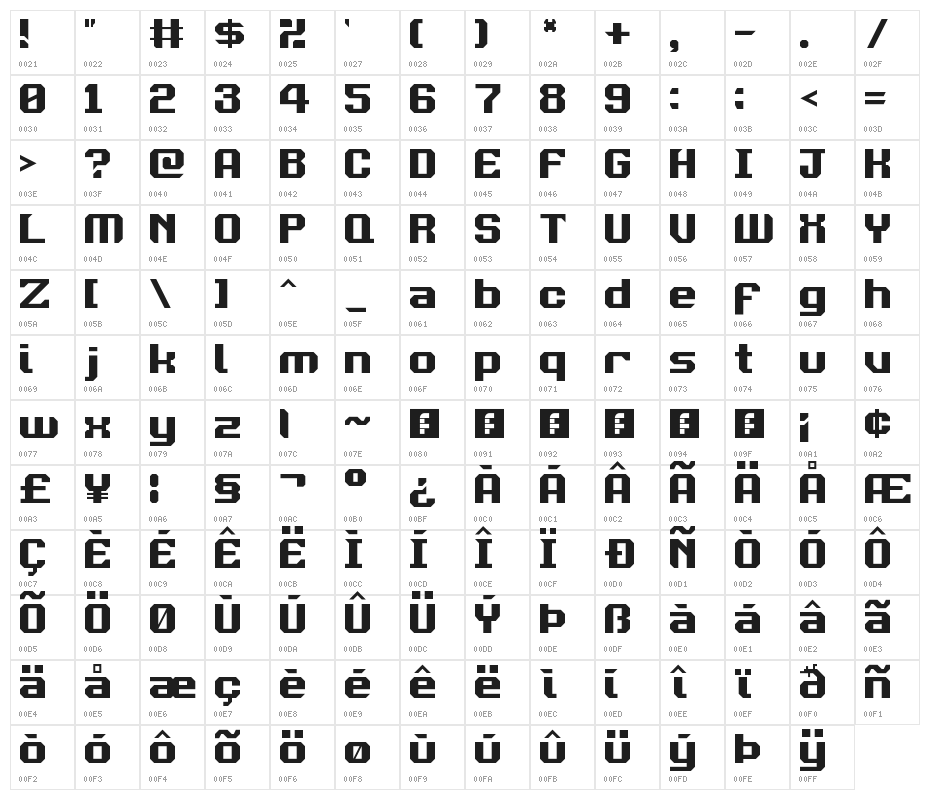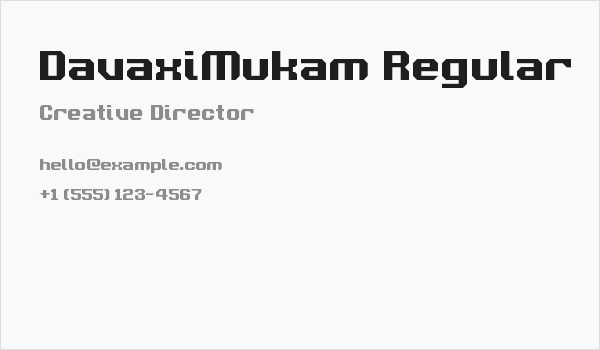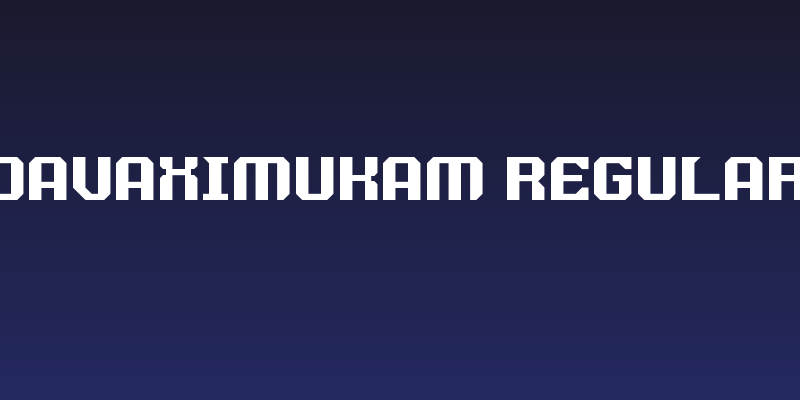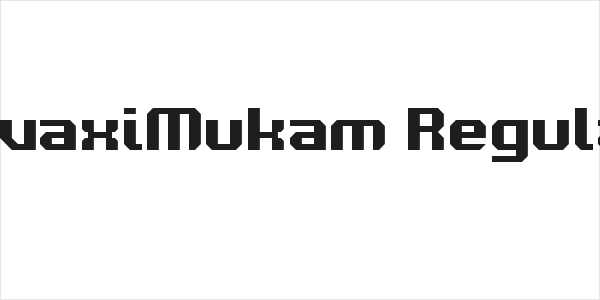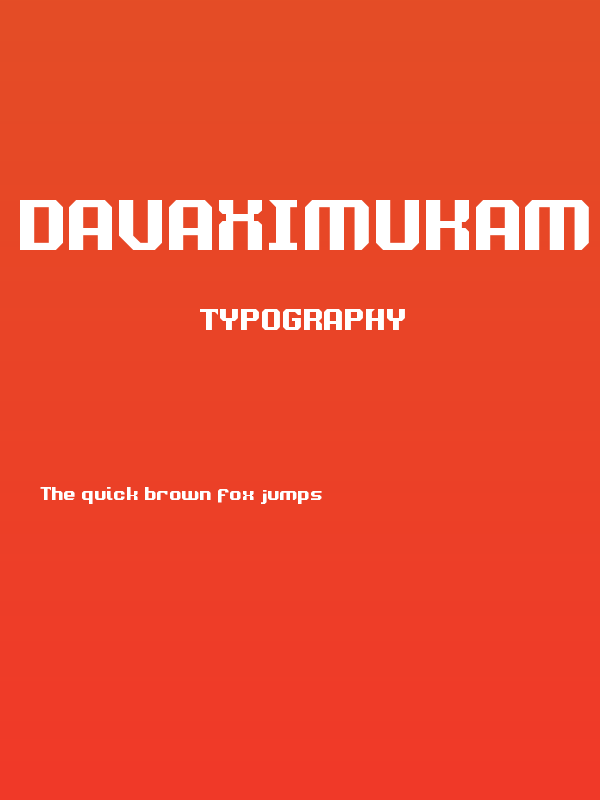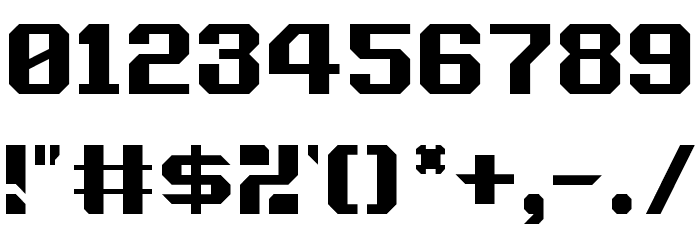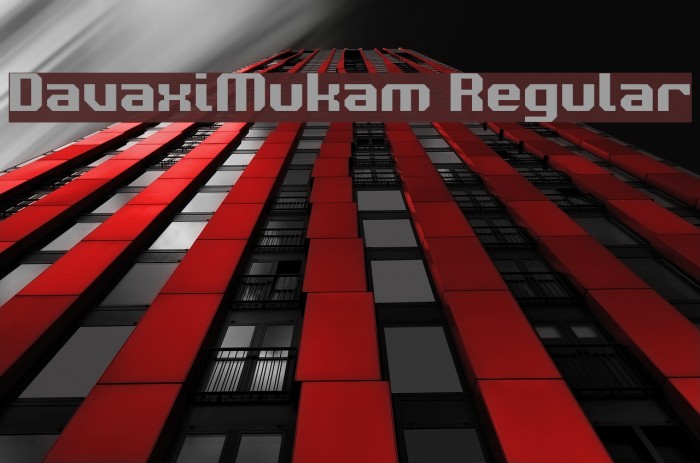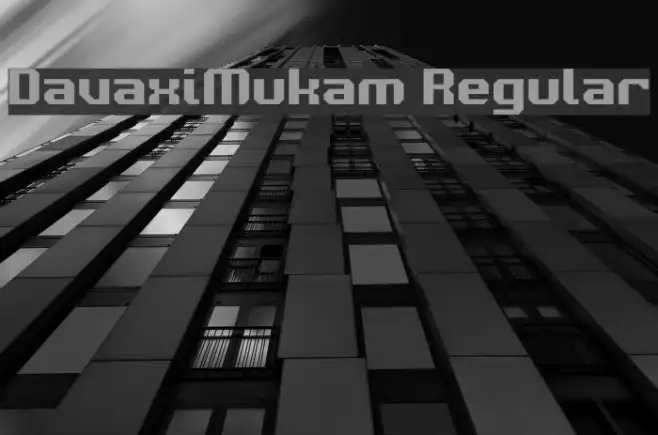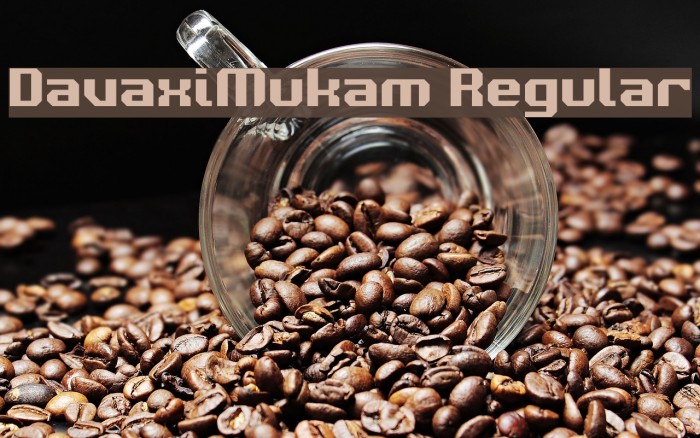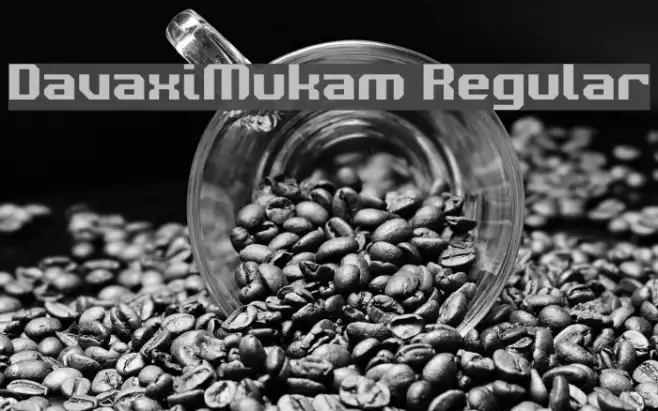
DavaxiMukam Regular Font
DavaxiMukam Regular Description
This font features a bold, geometric design with a strong, angular appearance. The characters are constructed with thick, uniform strokes that give it a robust and industrial feel. The uppercase letters are particularly striking, with a blocky aesthetic that is consistent throughout the alphabet. Lowercase letters maintain the same geometric style, ensuring readability while preserving the font's distinctive character. The numerals and special characters are designed to match the overall style, making them ideal for attention-grabbing displays. This font is perfect for projects that require a modern and assertive look.
| Proposed Projects | Ideal for branding, posters, headlines, and any project needing a modern, industrial touch. |